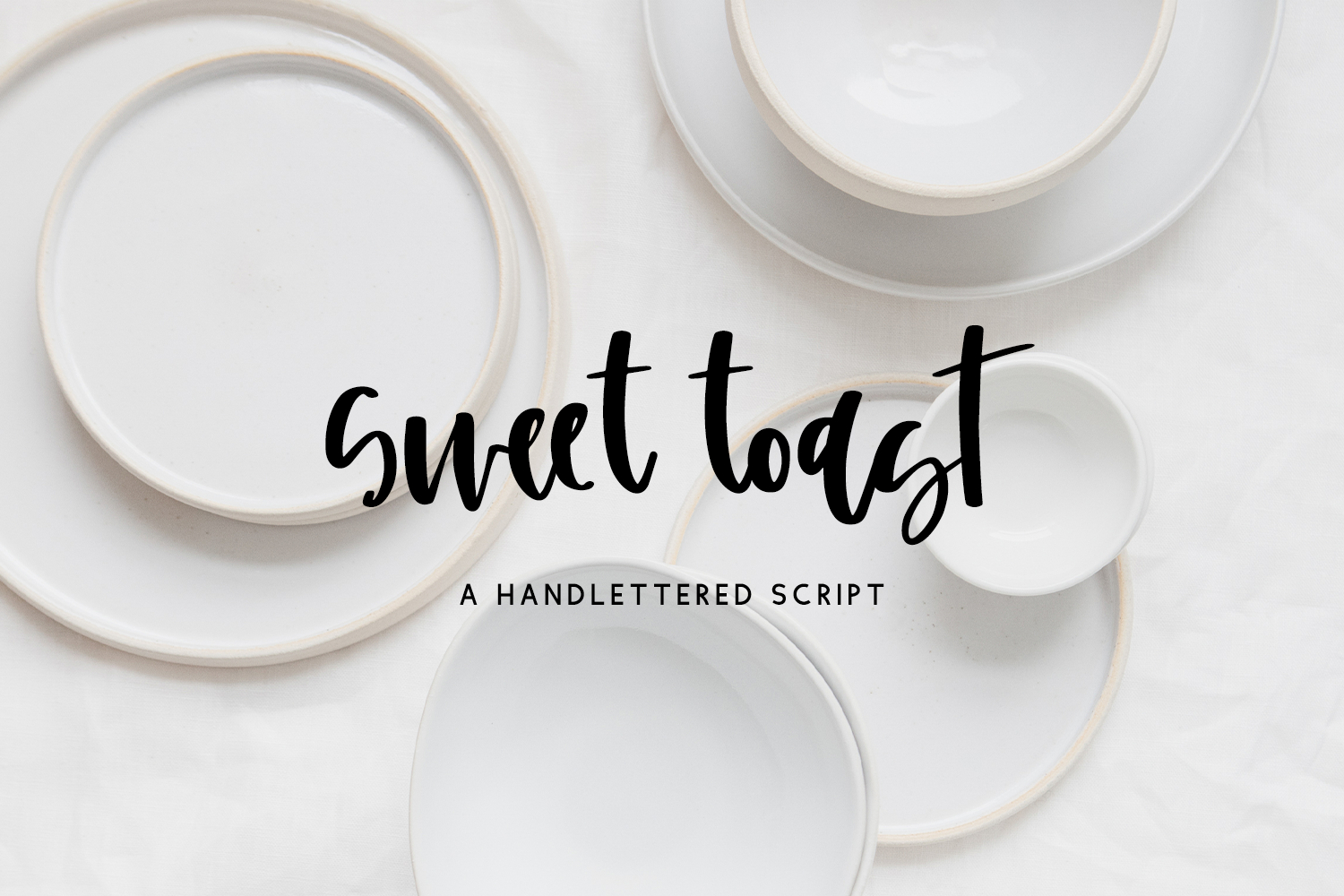
Introducing Sweet Toast Script, a playful handwritten font. Sweet Toast has clean edges for vinyl cutting, and a carefree style for a variety of projects.
Sweet Toast Script is best for:
- crafting with your Cricut or Silhouette machine, as it features super smooth lines for an easy cut
- website design + website accents - think travel blogs, fashion blogs, & more
Sweet Toast includes:
- 27 alternate characters